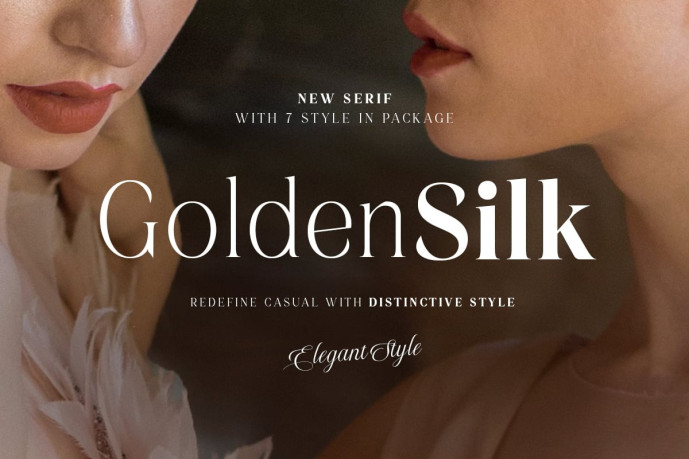
Golden Silk – Elegant Serif Font
Designer: baletype
Golden Silk – Elegant Serif Font family with stylish and modern looks. With 7 weight including light, regular, medium, semi bold, bold, extra bold, and black that you can choose for your design. You can use the light and regular for clean and minimalist looks or bold and extra bold for strong impressions.